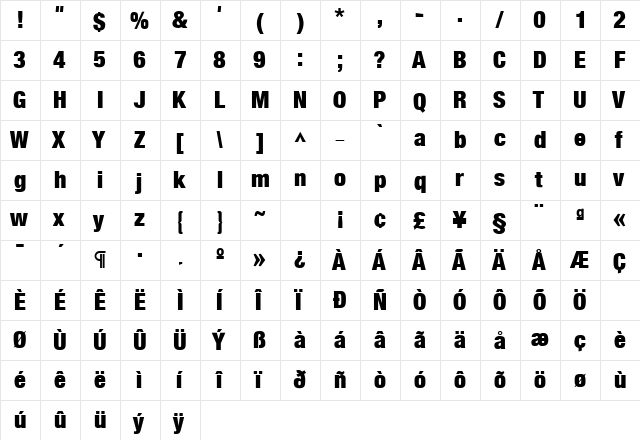
Harvest Regular
Design Context for Harvest Typeface
Harvest is a composed and adaptable typeface that performs quietly and consistently across a wide range of design contexts.